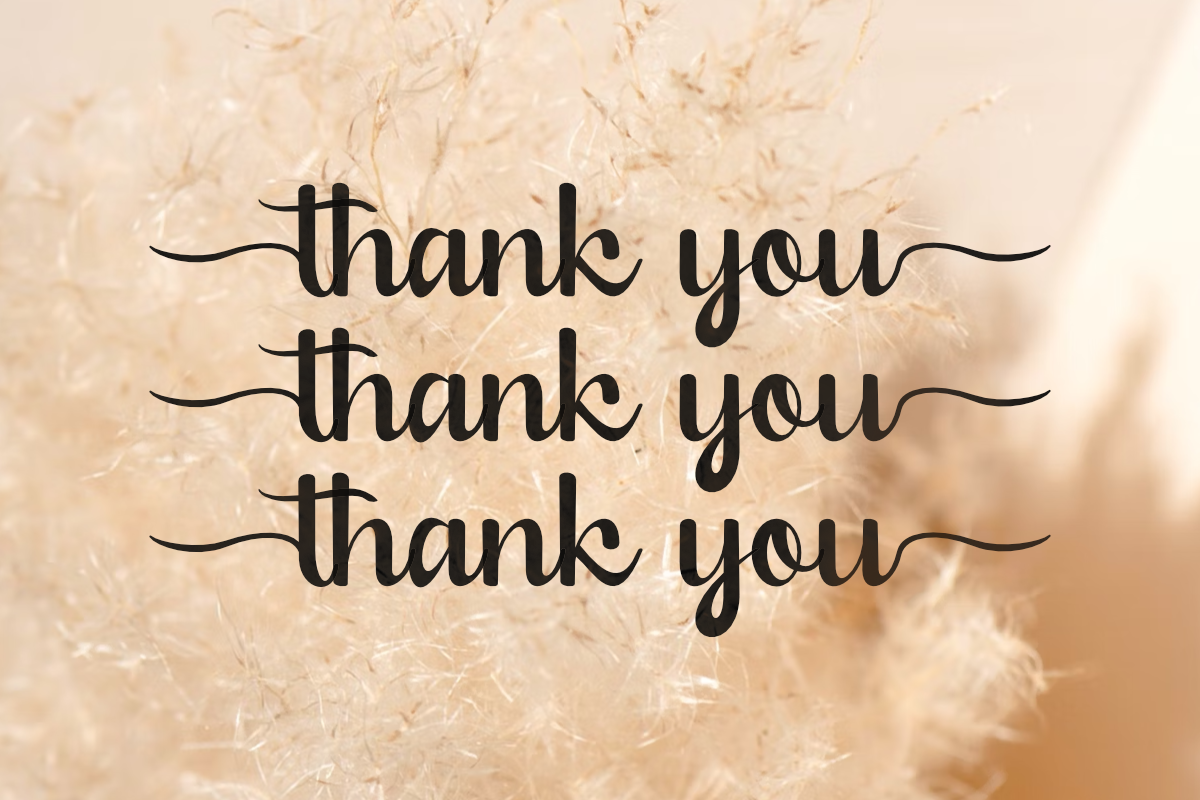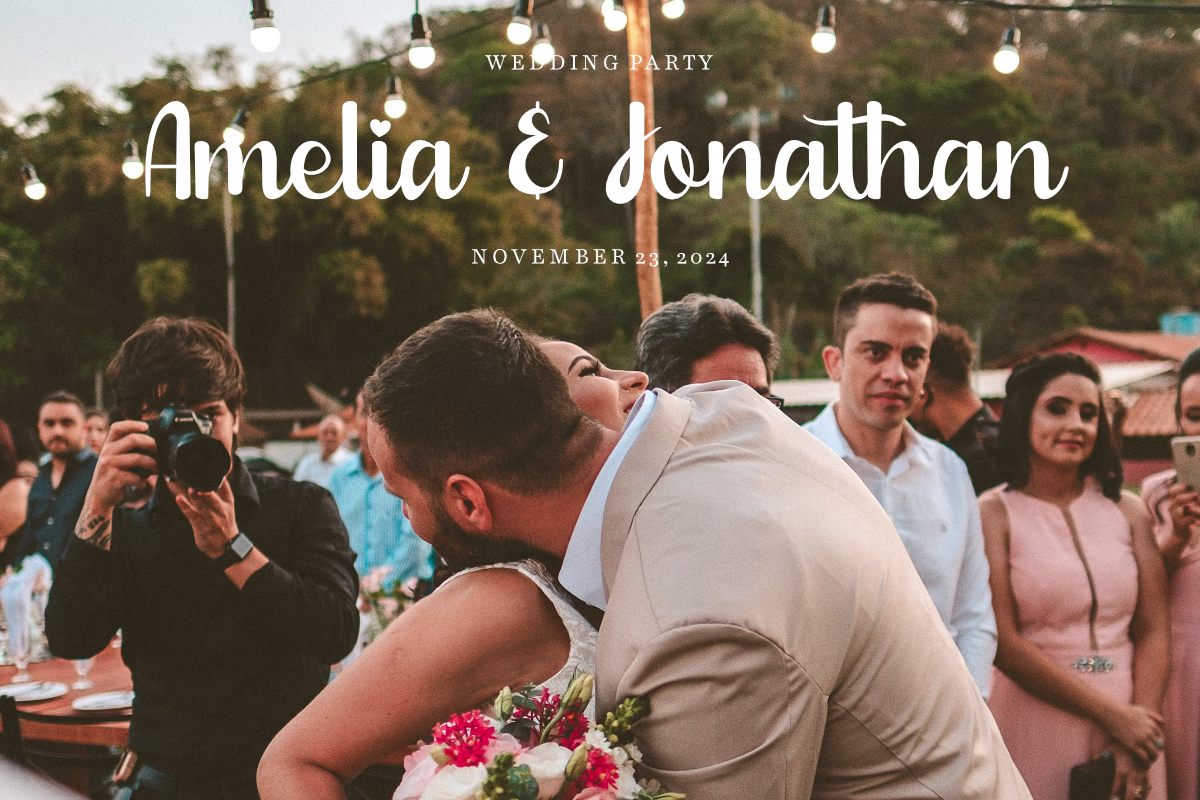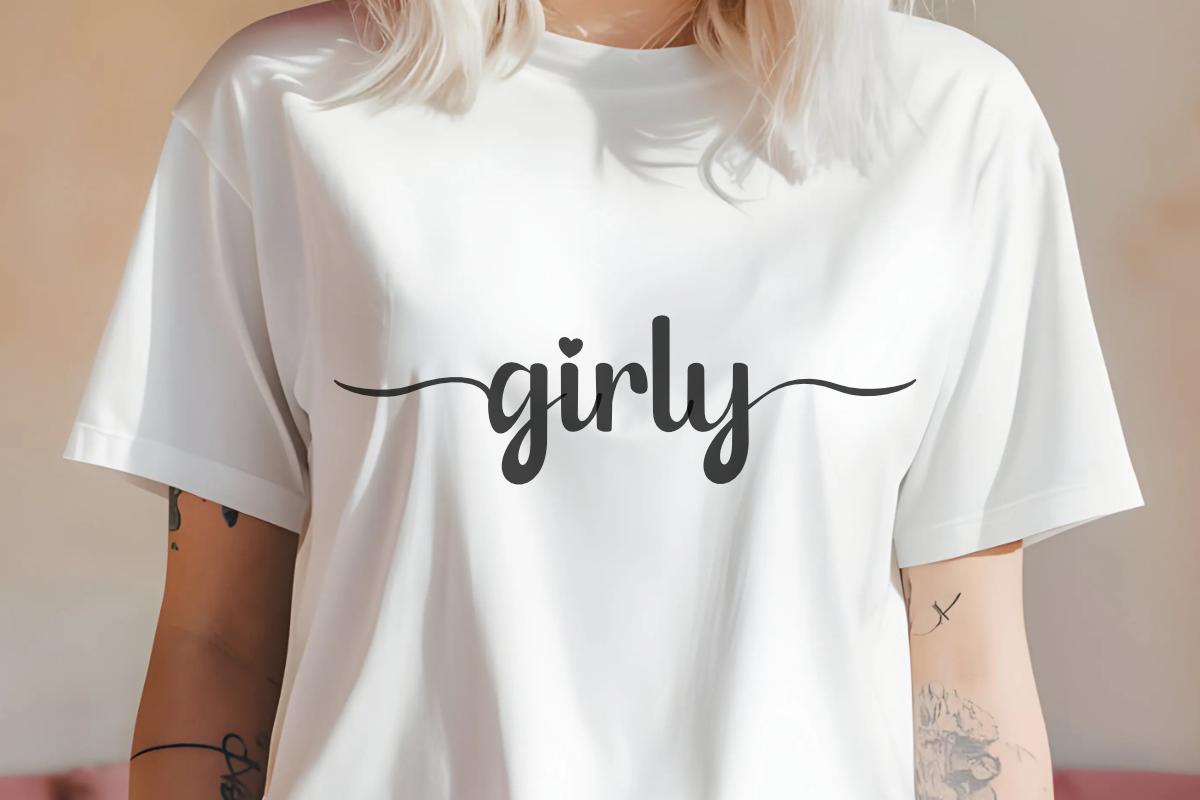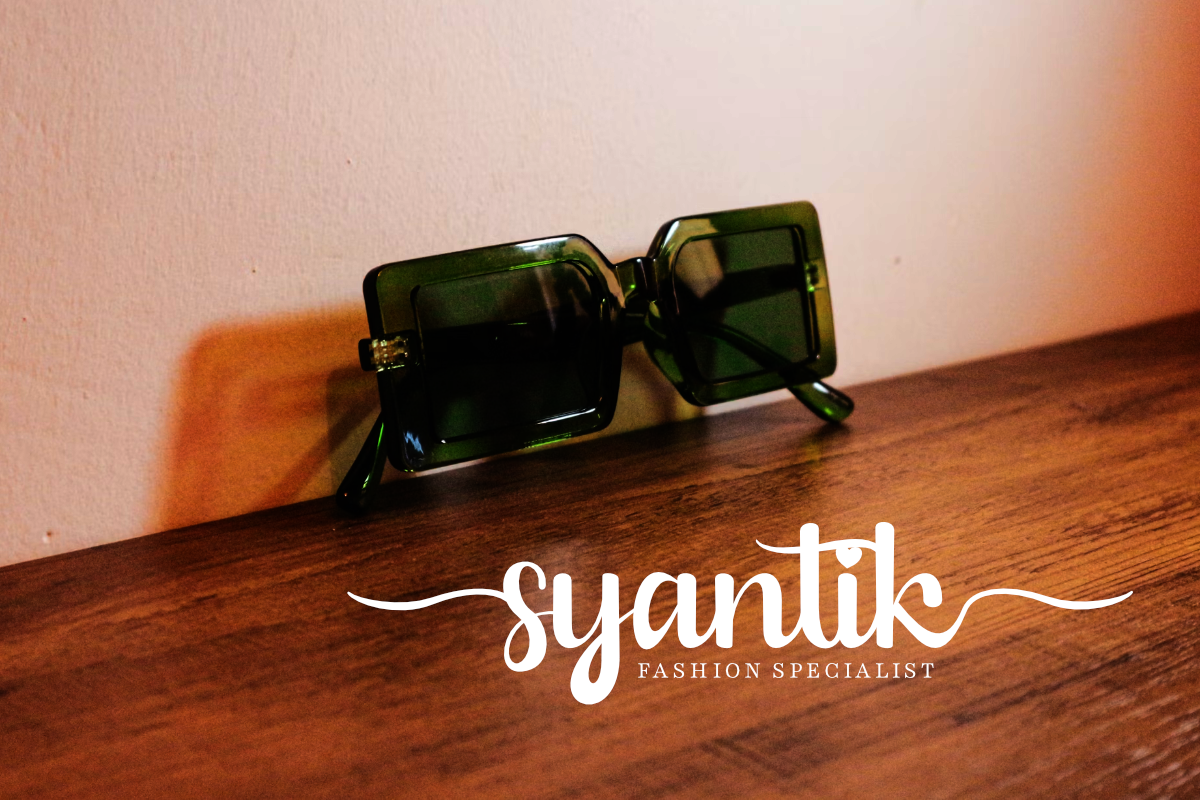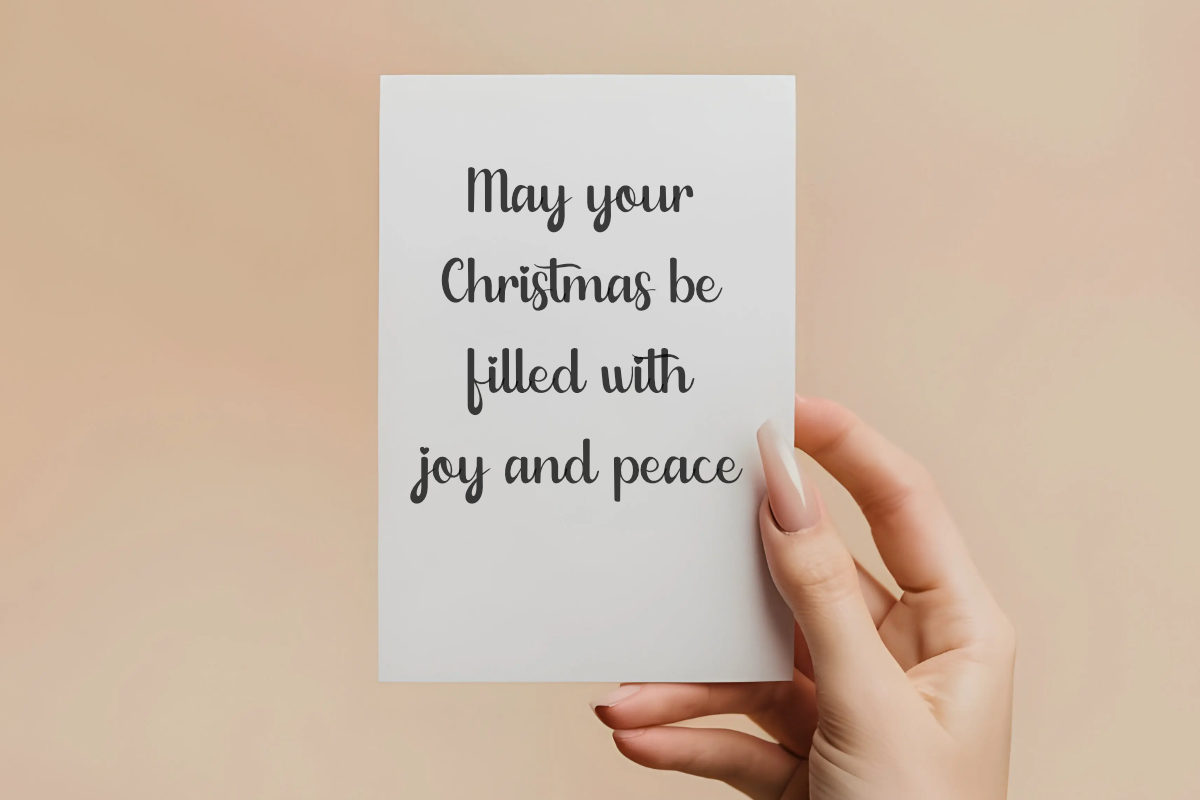
Miracle Christmas - Natural
Miracle Christmas is an elegant and modern script font with smooth and luxurious strokes. Perfect for wedding invitations, branding, logos, quotes, greeting cards and signature styles. With a feminine and stylish look, this font will give an exclusive touch to your designs!